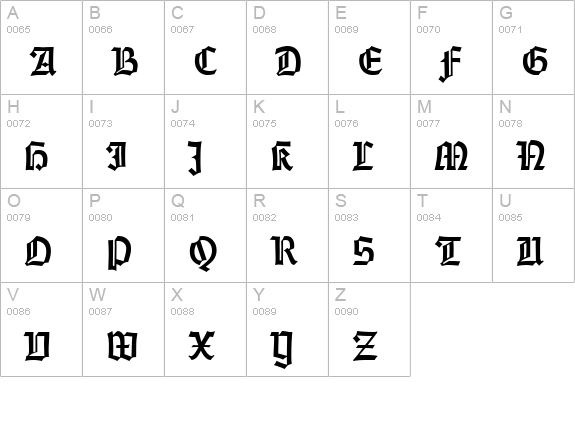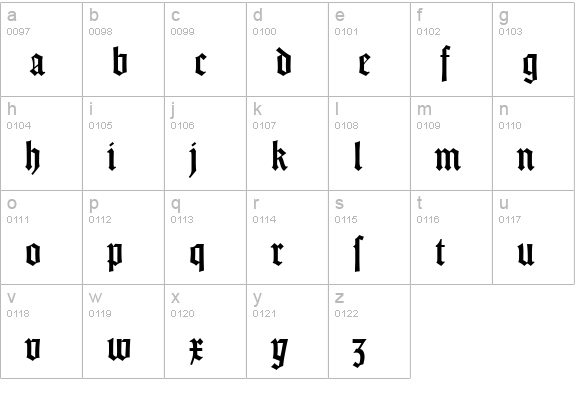
Gothic-Regular is the standard, neutral variant in the Gothic typeface family \xE2\x80\x94 well suited to general body text, paragraphs, and standard typographic work.
Gothic-Regular font is a timeless and elegant typeface that exudes a sense of mystery and sophistication. Its classic Gothic style, with sharp edges and intricate details, makes it perfect for adding a touch of drama to any project. The strong vertical emphasis and bold strokes give this font a commanding presence on the page. What's even better is that Gothic-Regular font is available for free download at FontsMarket.com. This means you can easily access this stunning typeface and use it in your designs without any cost. Whether you're creating a vintage-inspired poster, a gothic-themed invitation, or a dramatic logo, Gothic-Regular font is sure to make a bold statement. Don't miss out on this opportunity to enhance your designs with this beautiful and versatile font. Download Gothic-Regular today and unleash your creativity!